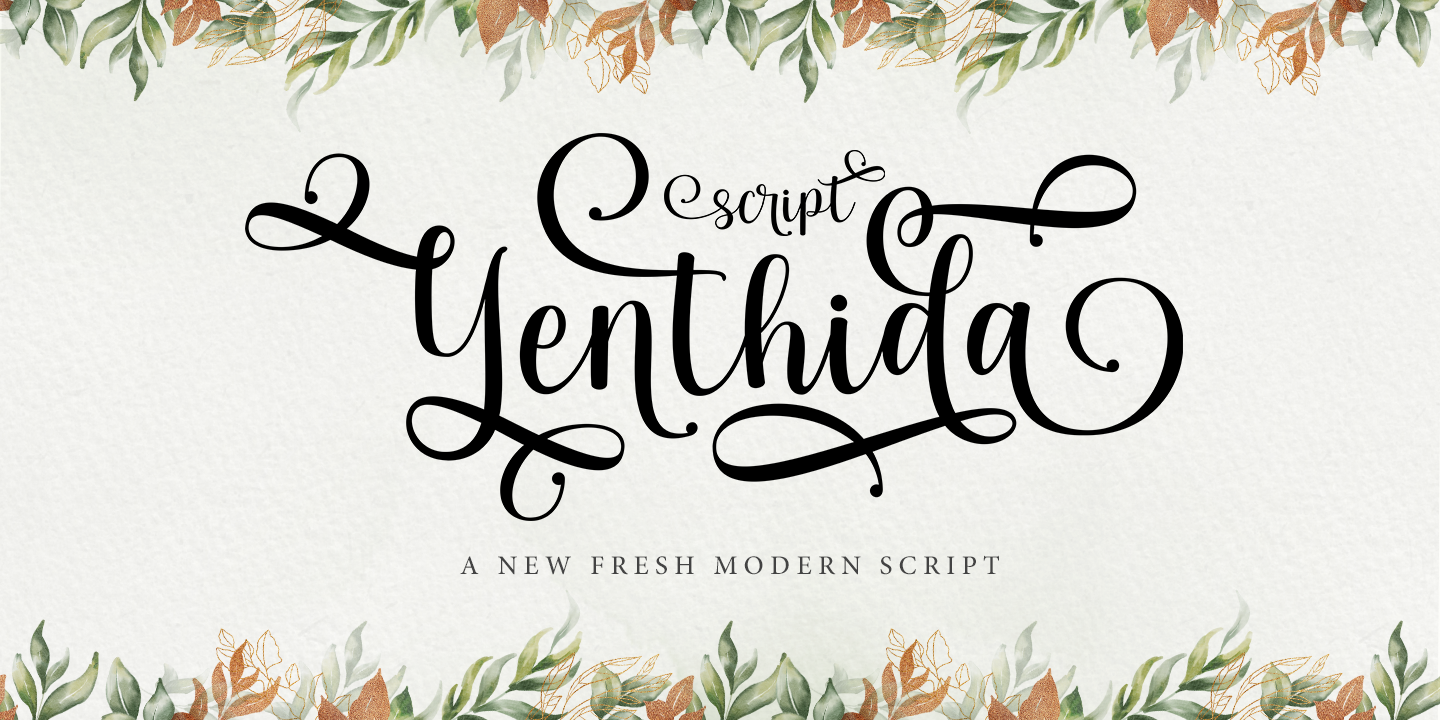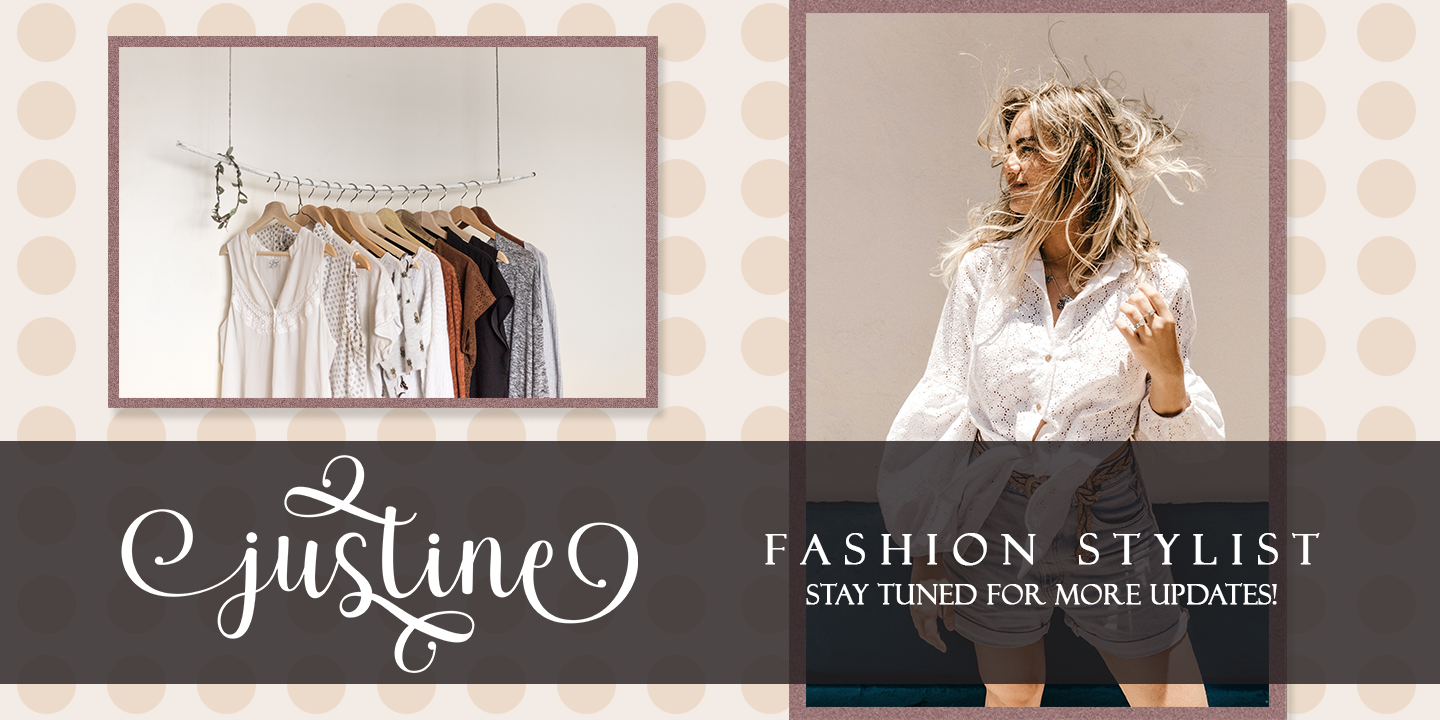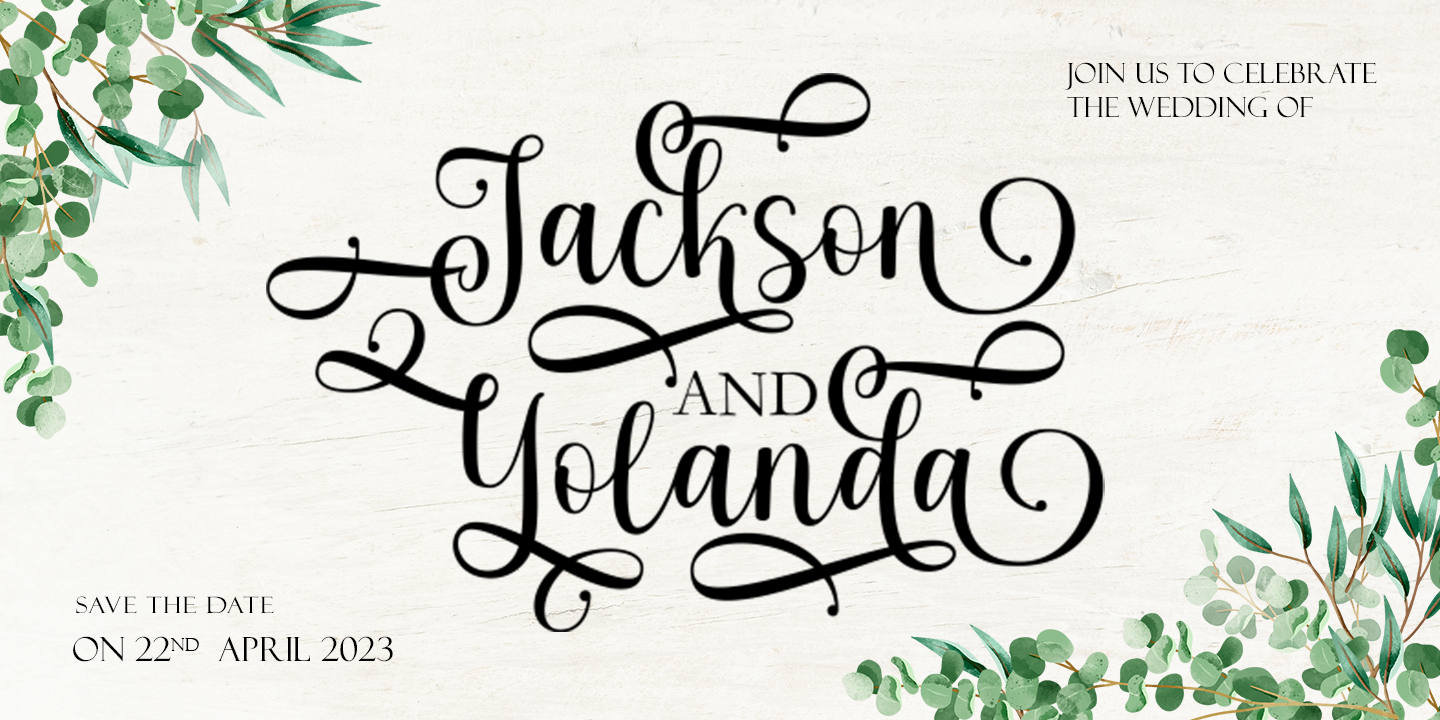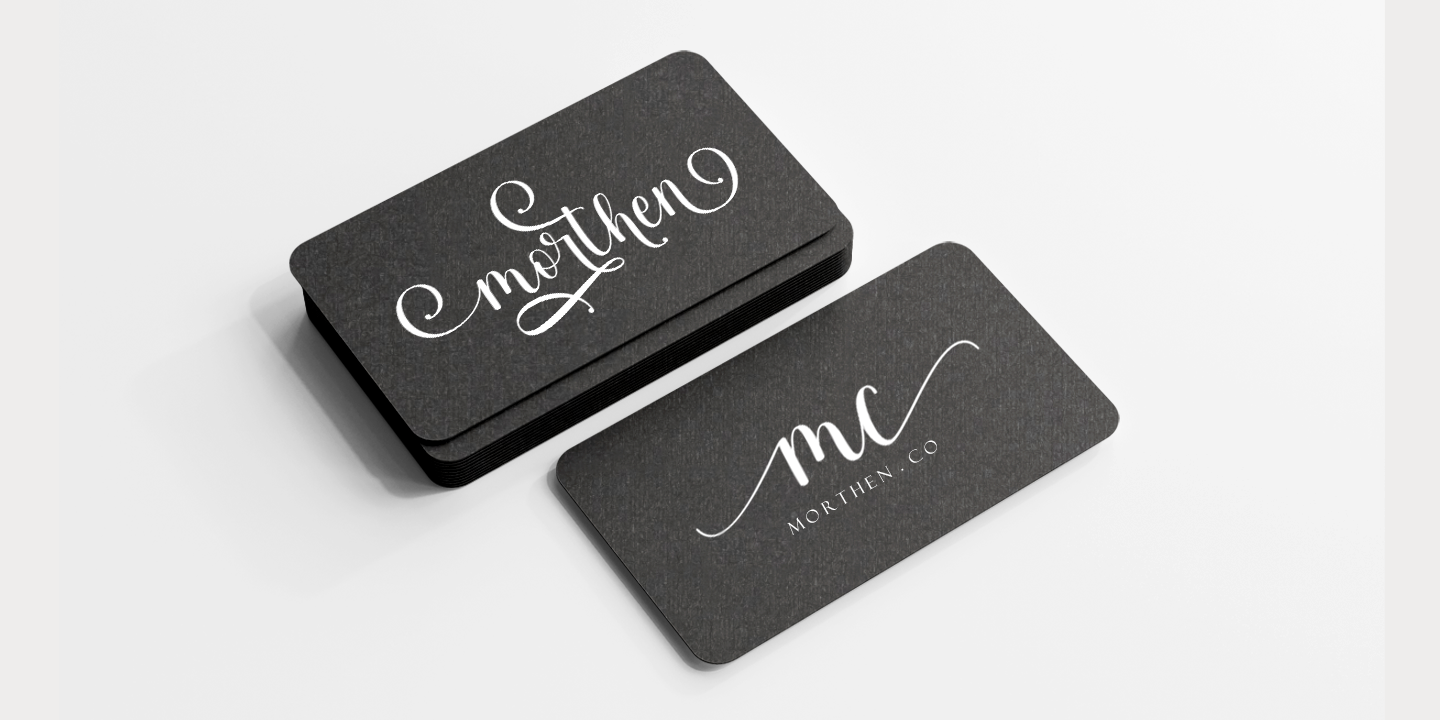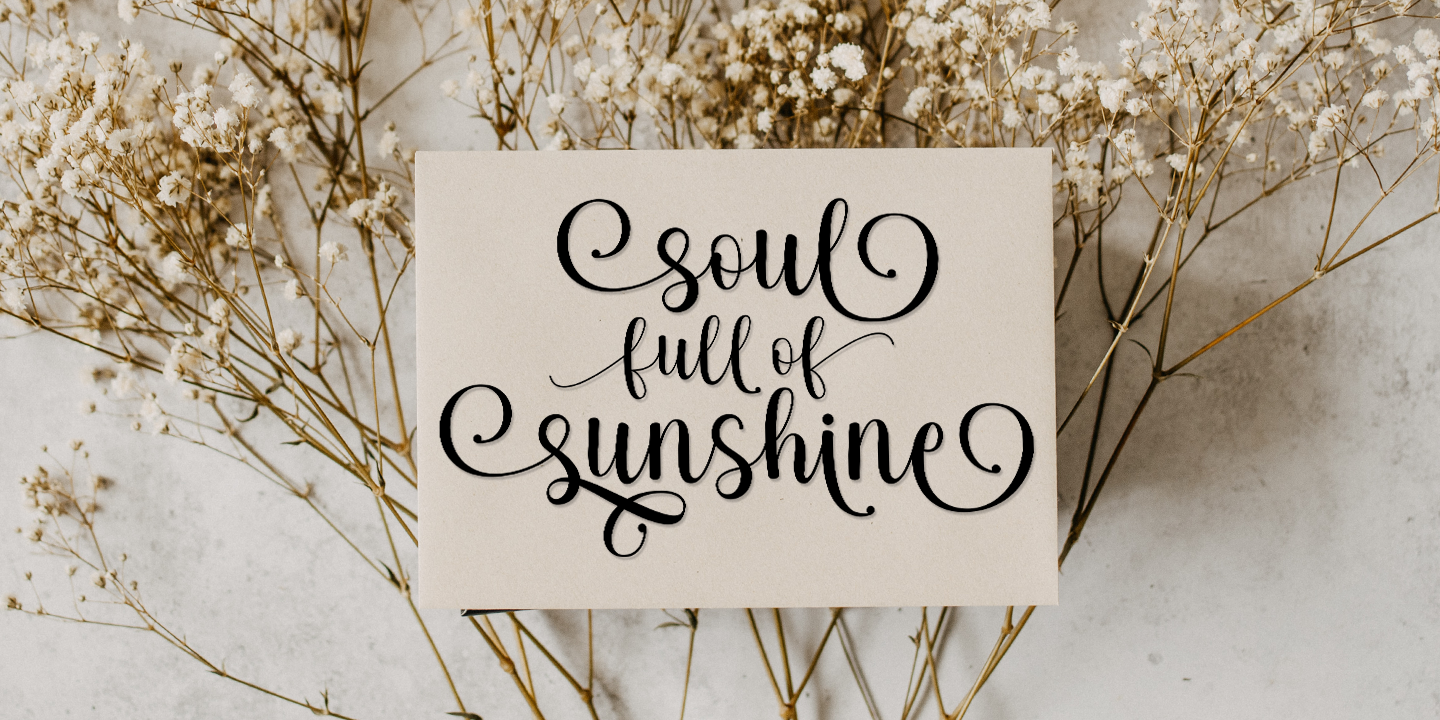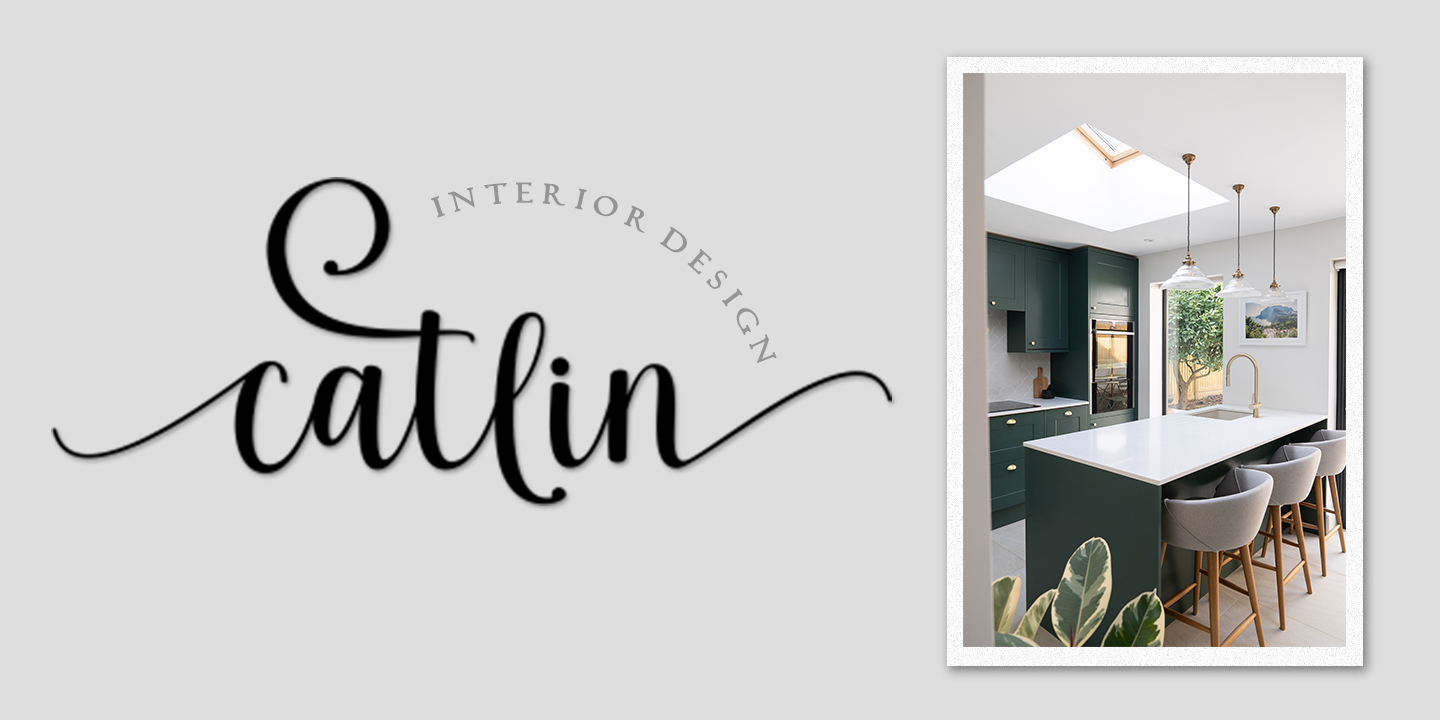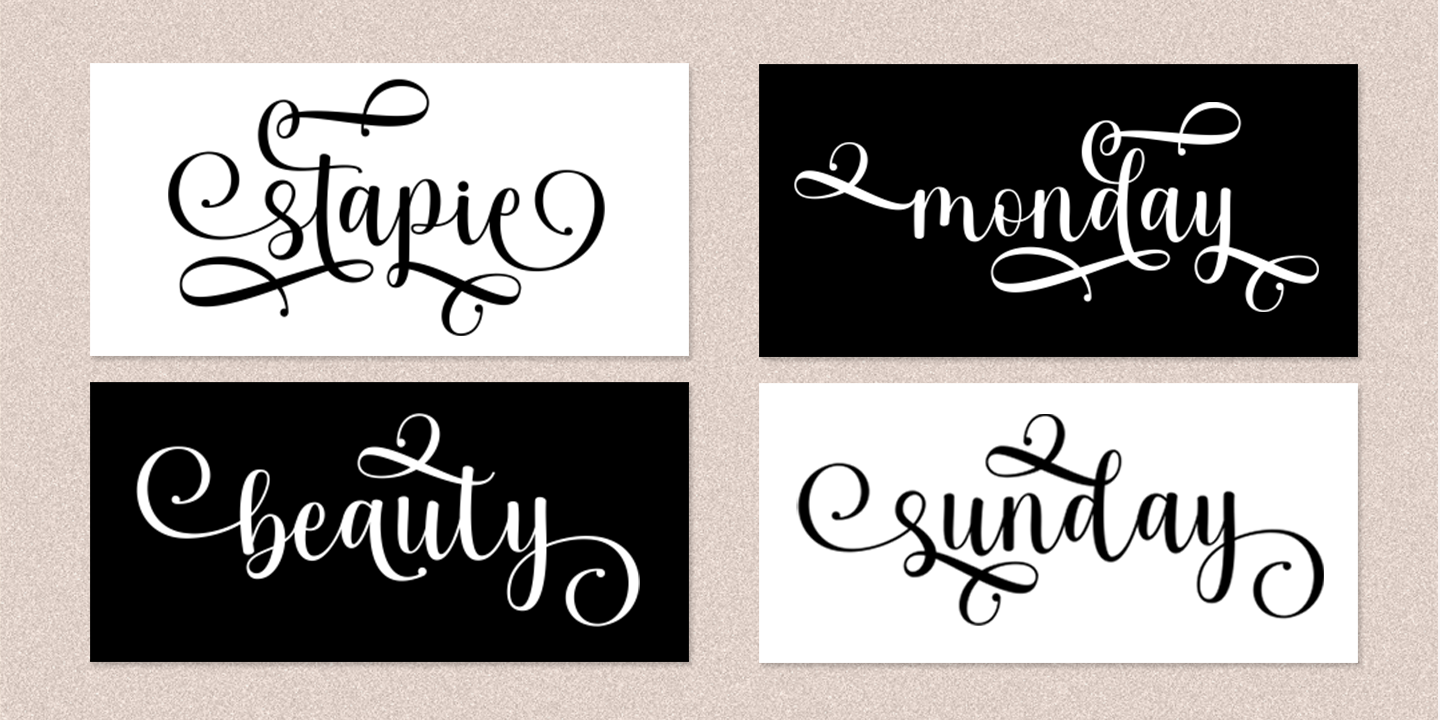
Yenthida Script is a modern calligraphy design, including Regular. This font is casual and beautiful with strokes. Can be used for various purposes. such as logos, product packaging, wedding invitations, branding, headlines, signage, labels, signatures, book covers, posters, quotes, and more.
Yenthida Script includes changes in OpenType stylistics, binding, and international support for most Western languages.